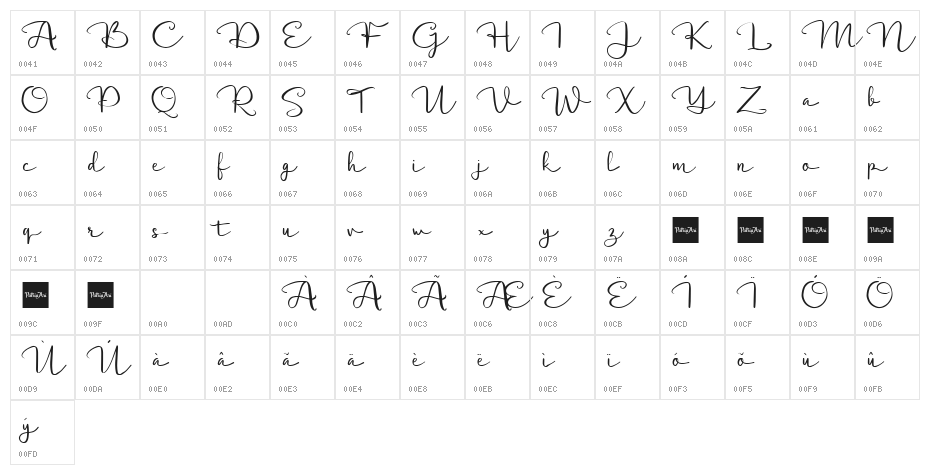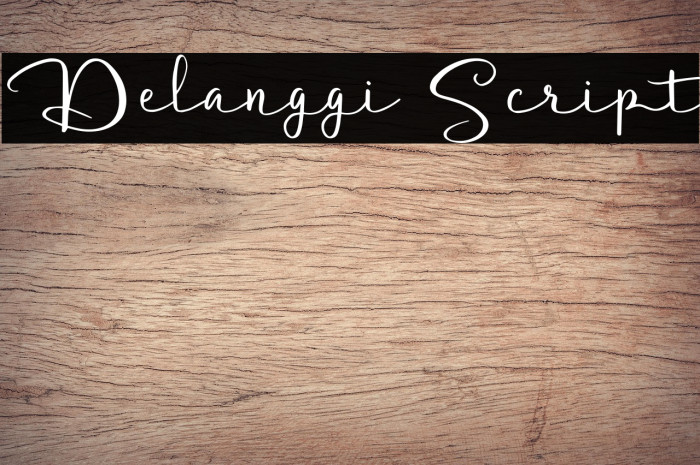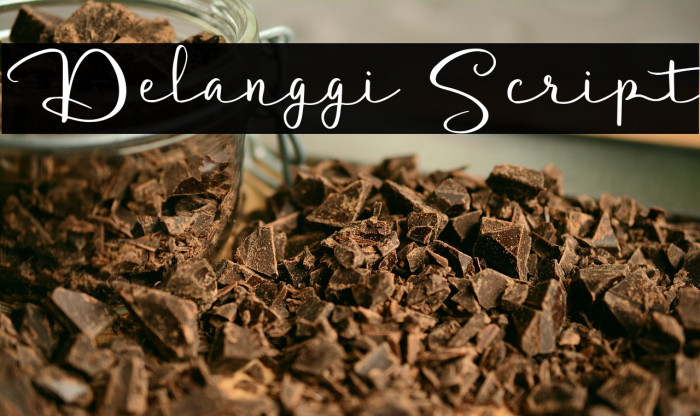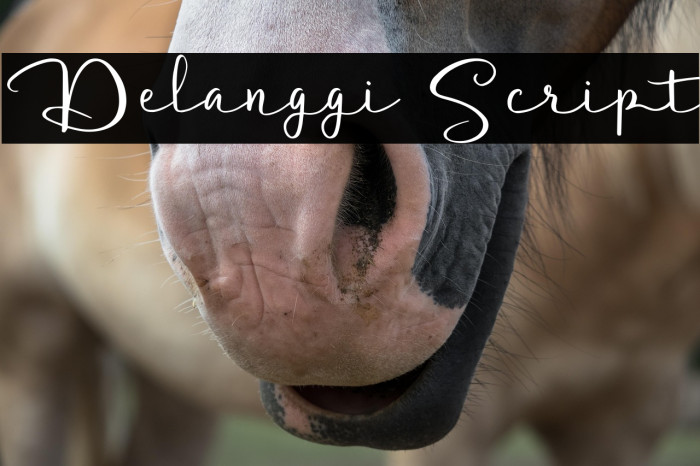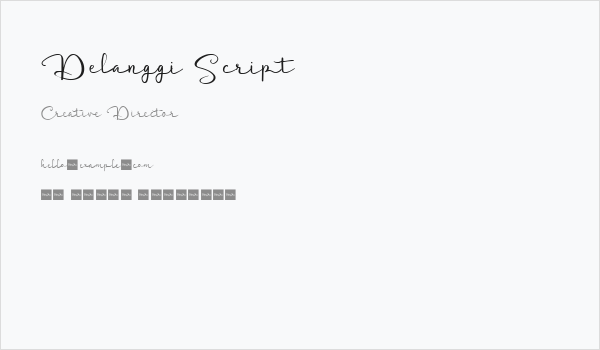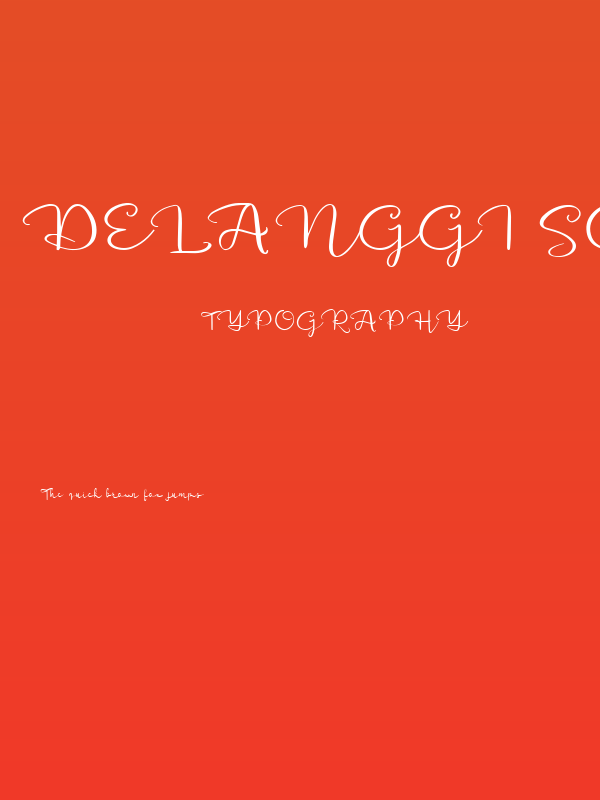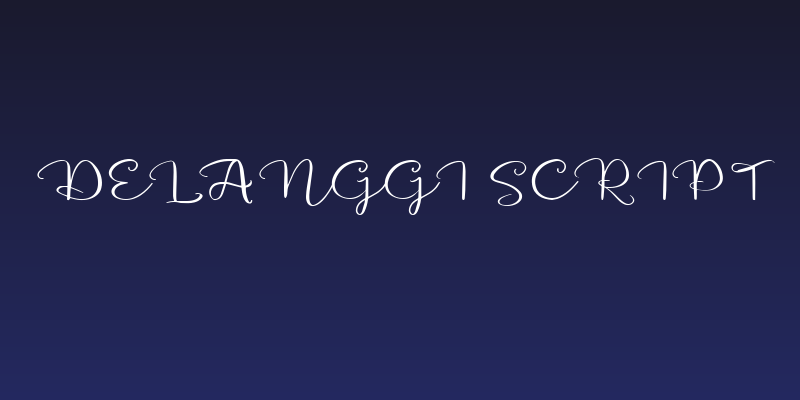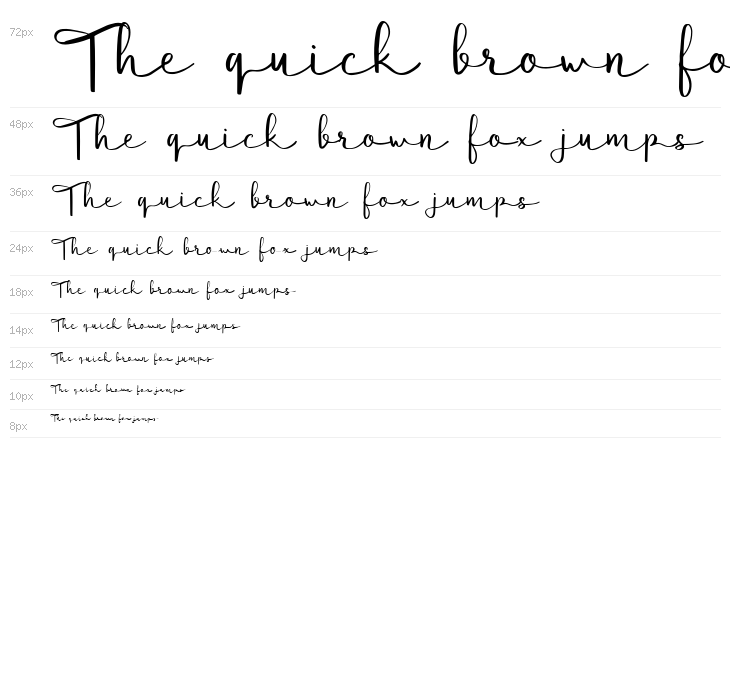
Delanggi Script Font
Delanggi Script Description
This script font features elegant, flowing characters with a handwritten style. The uppercase letters have a sophisticated flair with loops and swirls, while the lowercase letters maintain a consistent, smooth flow. The font exudes a sense of grace and fluidity, making it ideal for projects that require a personal touch. The characters are well-spaced, ensuring readability while maintaining the artistic integrity of the script. The font's design is both classic and contemporary, offering versatility for various design needs.
| Overall Style | Classic |
| Use Case | Logos, Invitations, Decorative text |
| Proposed Projects | Ideal for wedding invitations, greeting cards, branding, and logo design. |